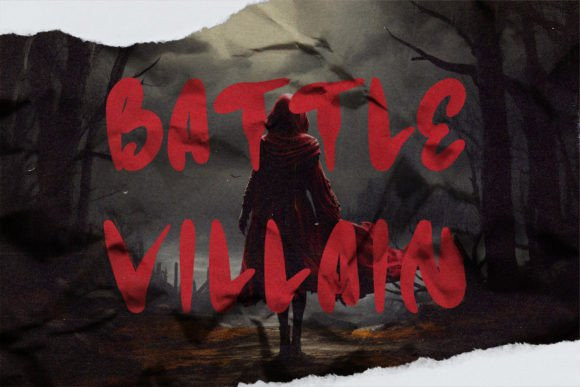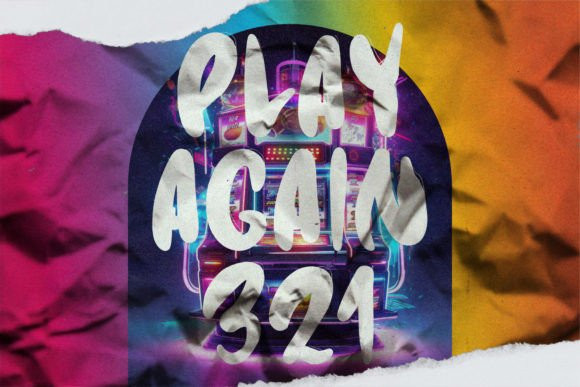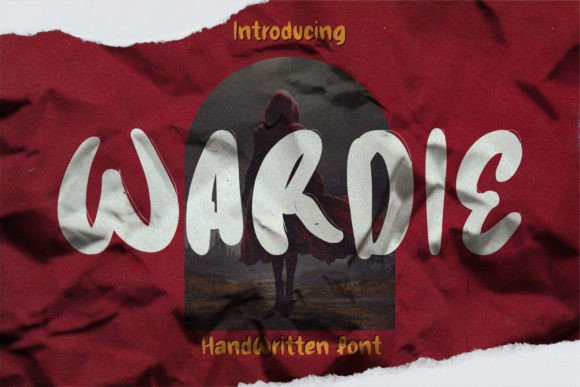
Wardie Font
Wardie Font is a charming handwritten font that effortlessly captures the essence of natural, personal writing. Its flowing strokes and gentle curves exude warmth and authenticity, making it perfect for projects that require a friendly and approachable touch. Wardie’s versatility extends from casual and playful to elegant and heartfelt, making it a delightful choice for creating personalized invitations, heartfelt messages, or any content that benefits from a genuine, human touch. With Wardie, your typography gains a unique and heartfelt character